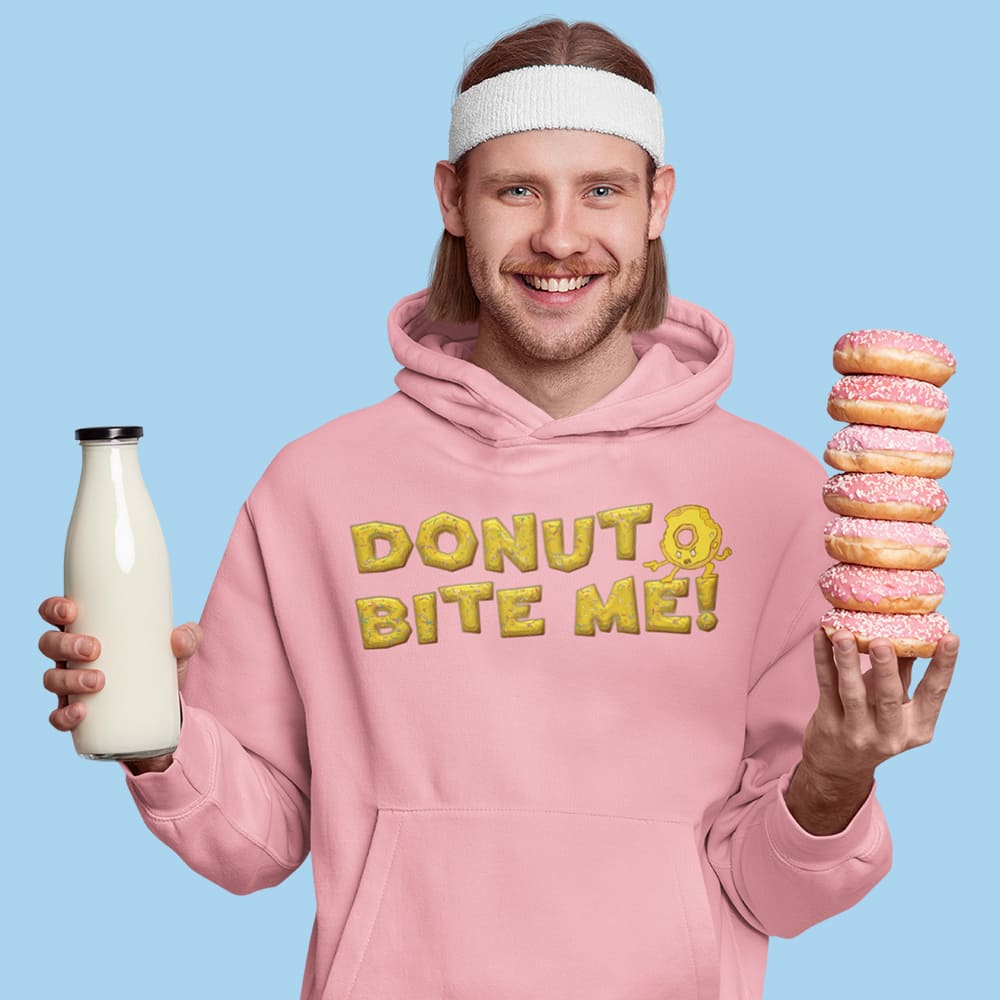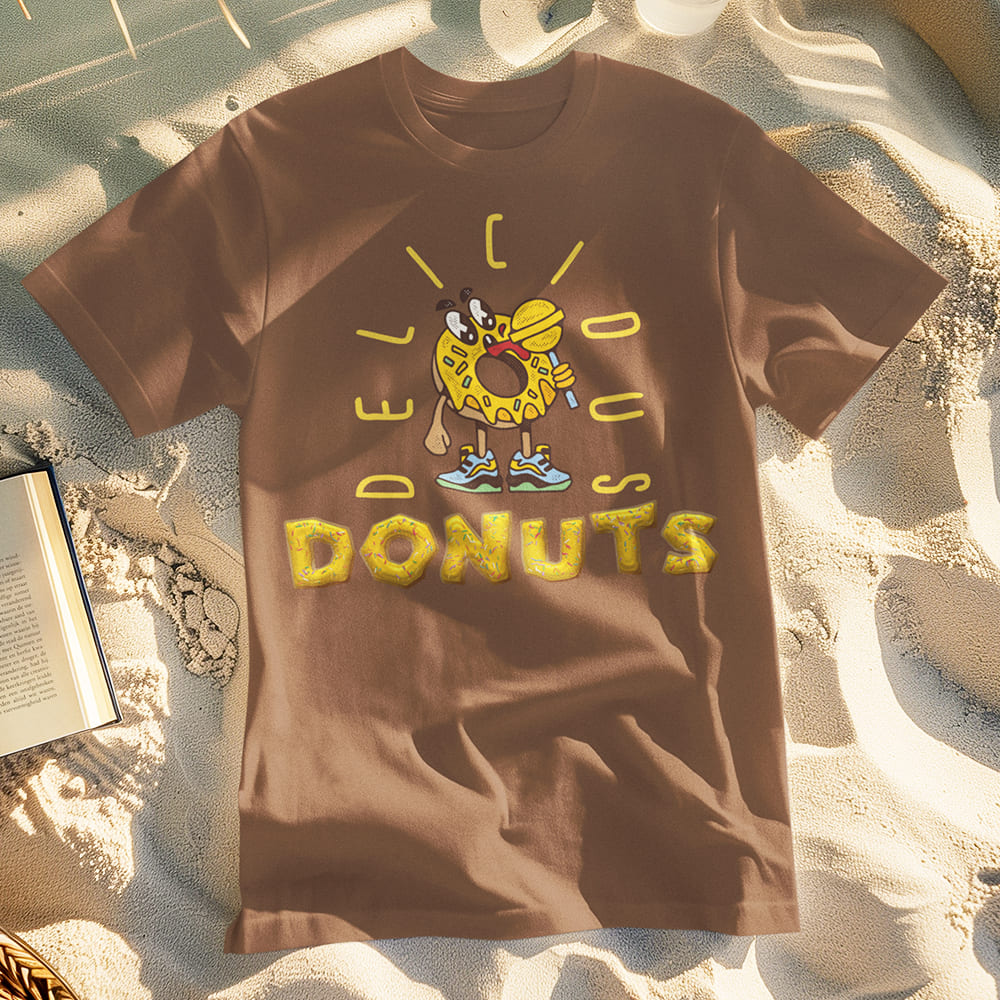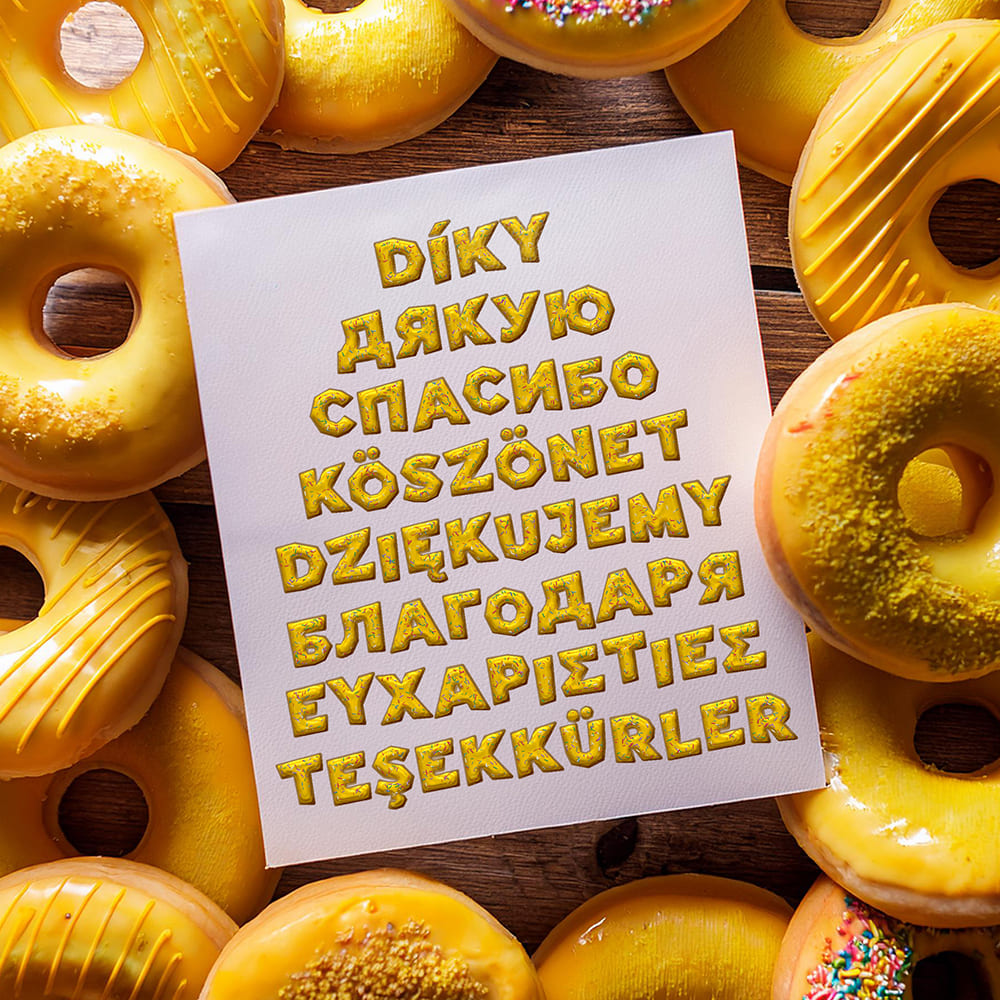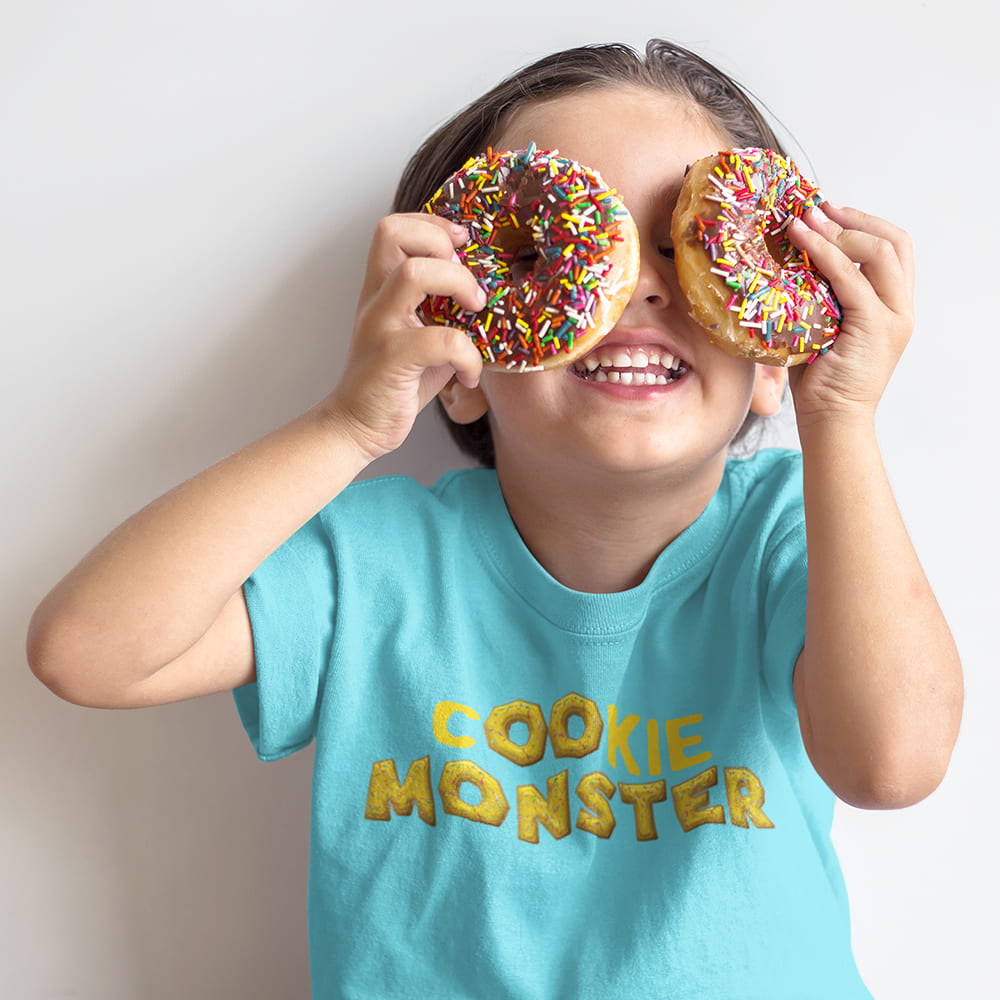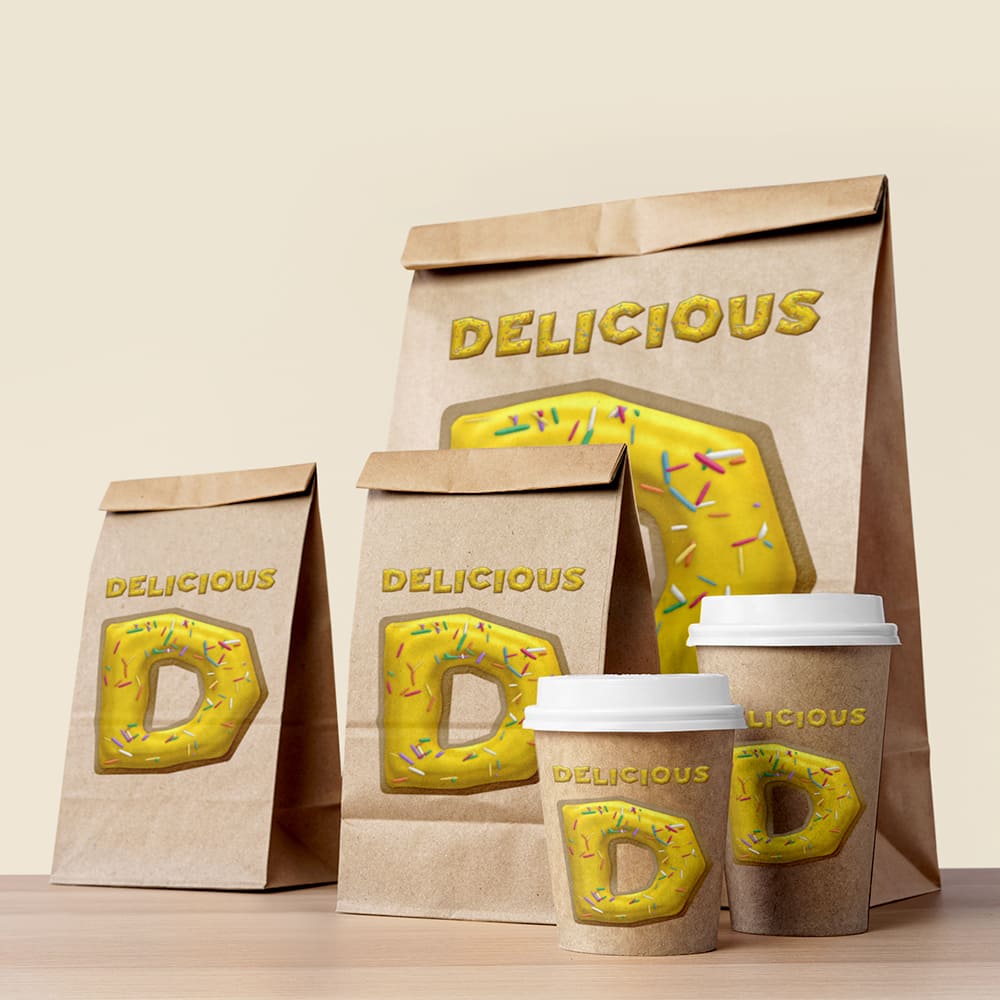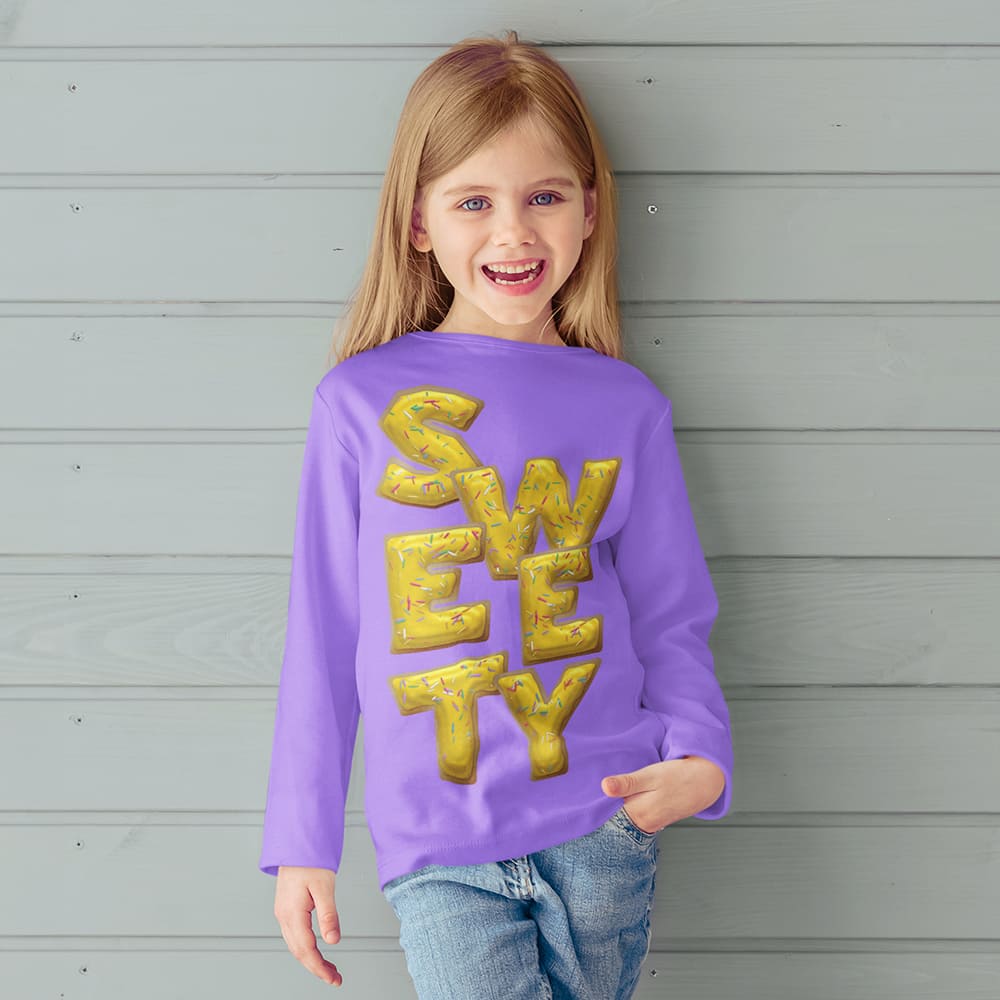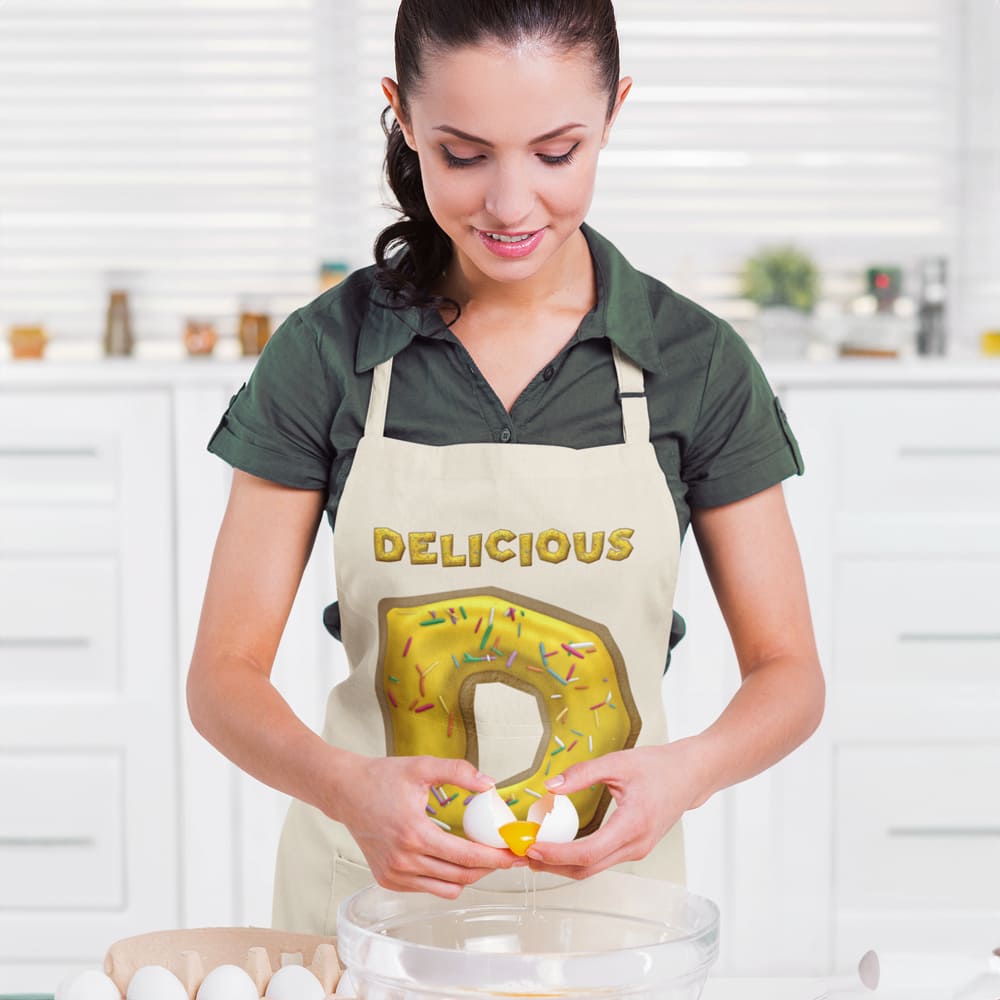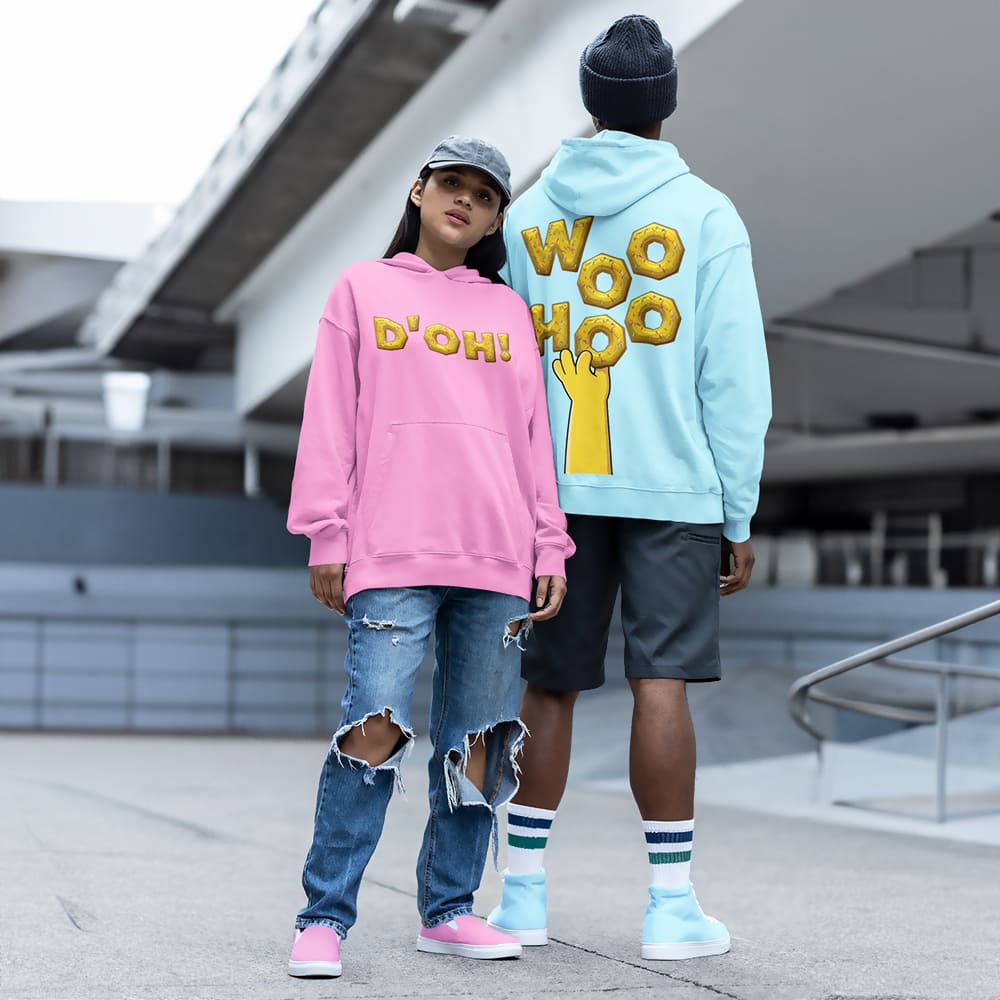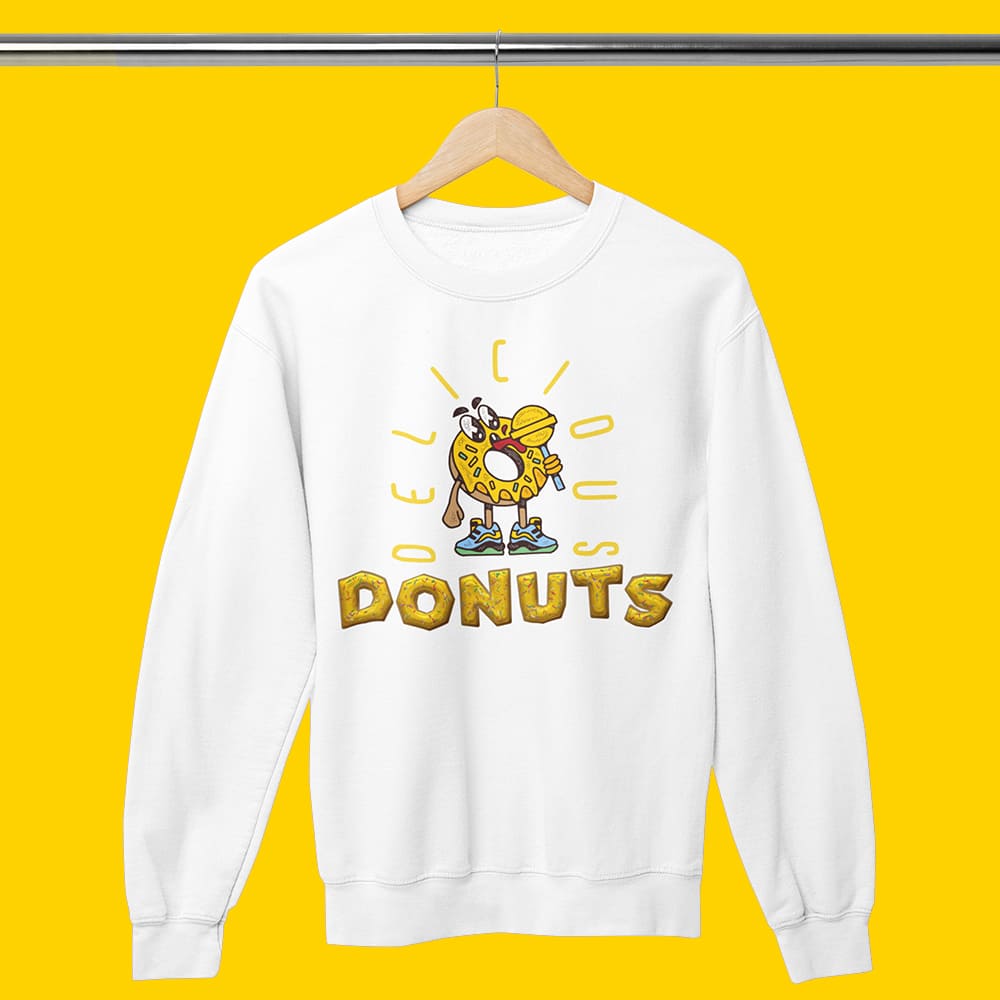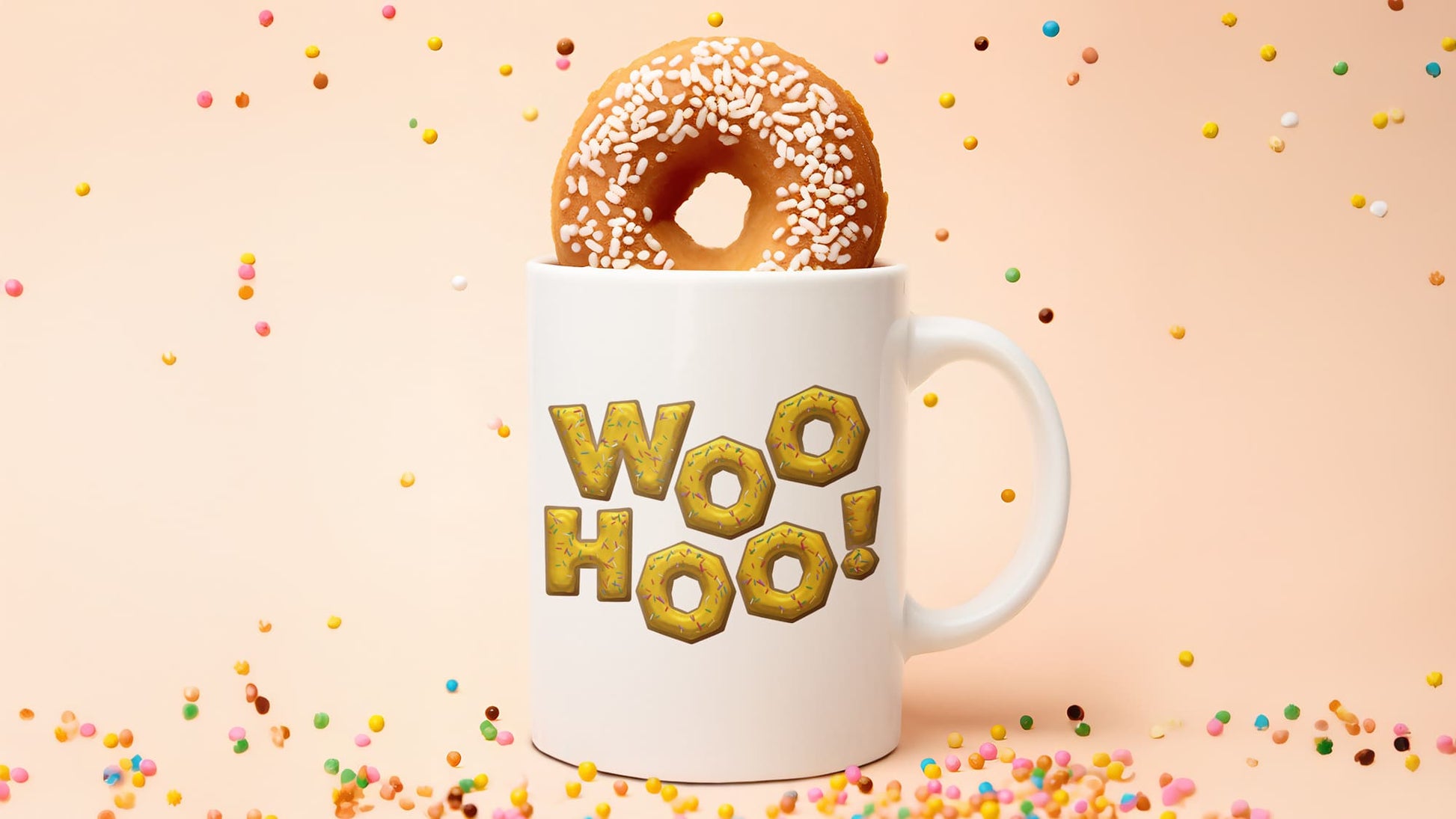
Yellow Donuts Font
Bright, Fresh, Irresistible 🎂🍩🧁
Looking for a design that radiates joy, energy, and positivity? Then you need the Yellow Donuts Font – a typeface as sunny and inviting as a fluffy donut covered in golden-yellow glaze! Perfect for playful, eye-catching, and cheerful designs that stand out instantly.
Why Choose the Yellow Donuts Font?
🔹 Bright & friendly – The Yellow Donuts Font brings a warm, happy vibe to any design. Ideal for projects that need to convey happiness, optimism, and fun.
🔹 Bold & eye-catching – With its soft, rounded letters and vibrant yellow hue, this font grabs attention—perfect for advertising, events, or branding that wants to shine.
🔹 Perfect for Social Media & Promotions – Whether for posters, flyers, digital campaigns, or packaging, the Yellow Donuts Font makes every design irresistibly inviting.
Make a Statement with the Yellow Donuts Font
Give your branding a friendly, lively, and unique touch with the Yellow Donuts Font. It’s the ideal choice for brands and projects that want to spread a bright, playful, and positive energy.
🔹 Let your design shine – with the Yellow Donuts Font!
🔹 Choose cheerful. Choose bold. Choose Yellow Donuts Font.